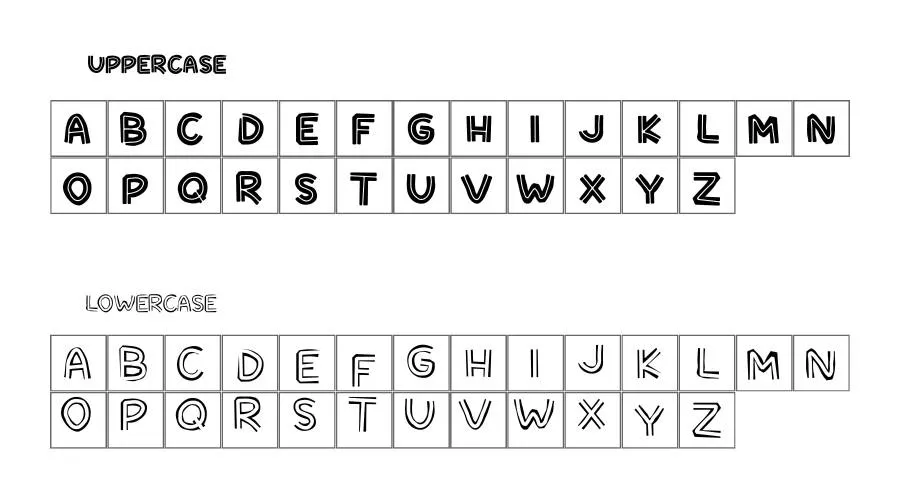
Super Tiki Font is a fancy typeface that has been designed by Etherbrian in 1999. Its popularity increasing day by day because of its stylish and trendy texture style. You can download this font for free and utilize it on your both operating systems PC and MAC.
This font has an online generator tool, in which you may change all your simple textures into stylish and trendy shapes. When this font was published in the font world, it gained soo much popularity in a very short time. It has a good-looking texture and can be paired with the donrees claws font and create luxury tasks.